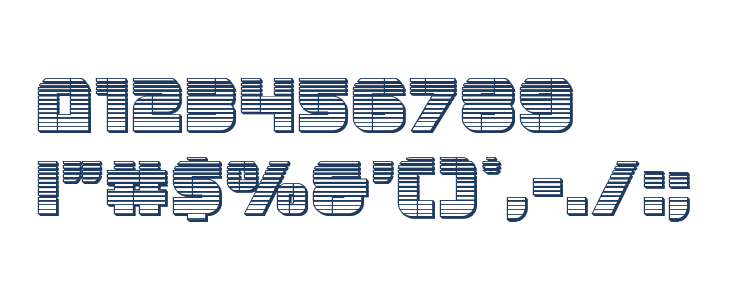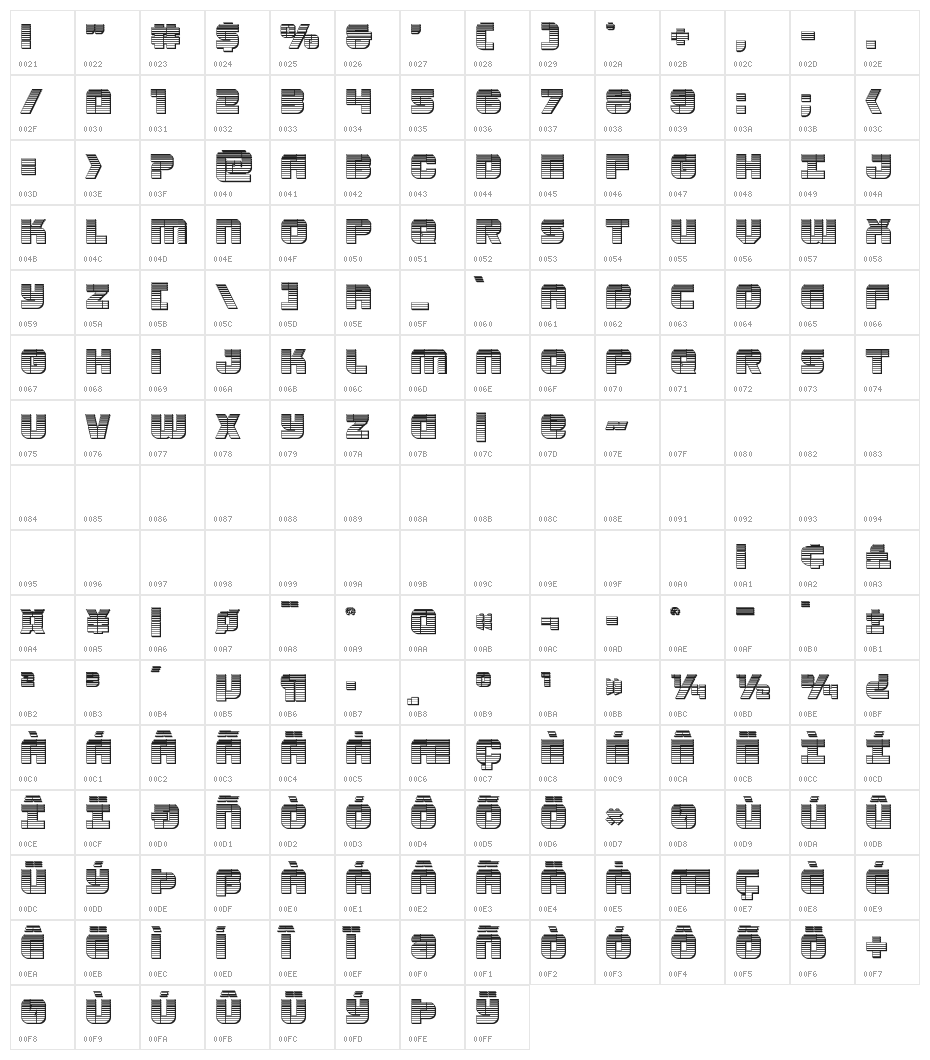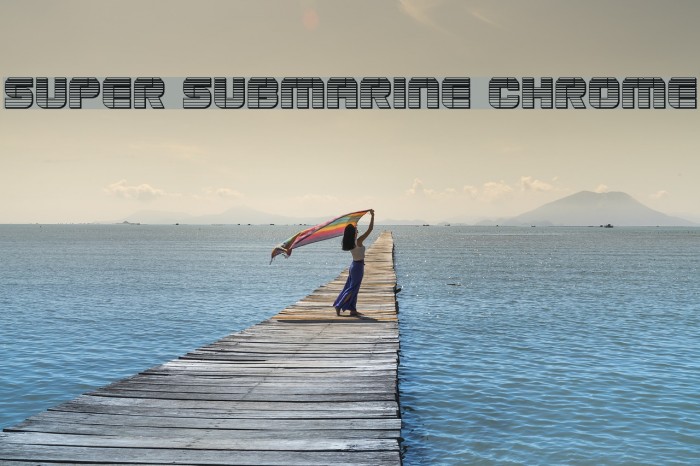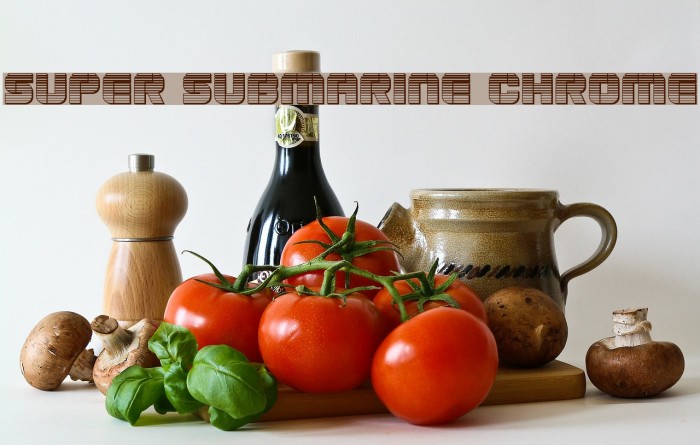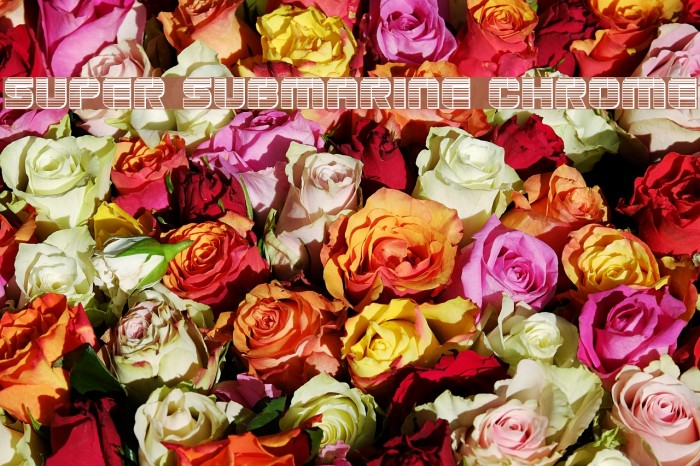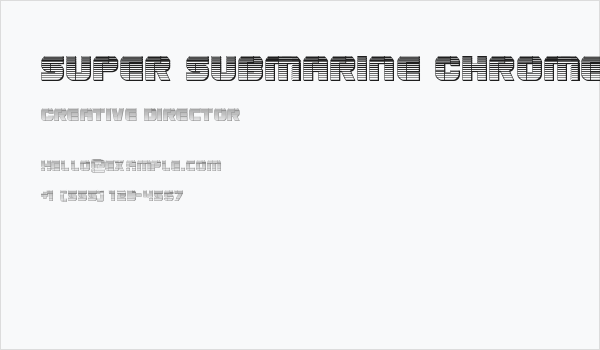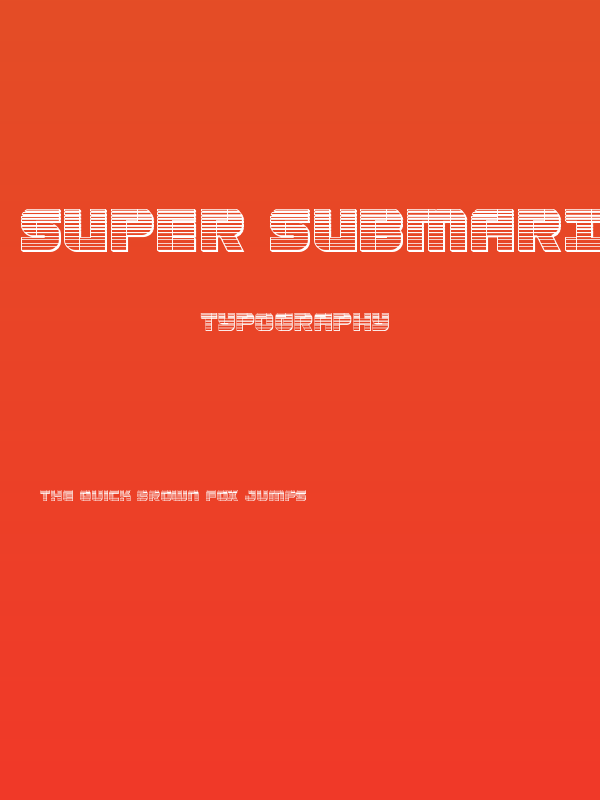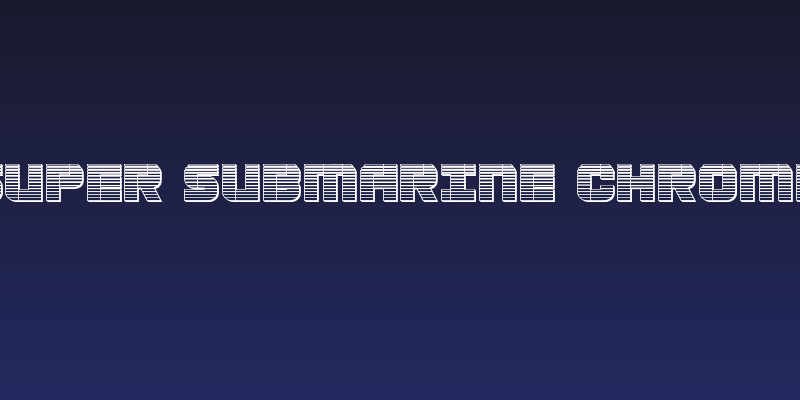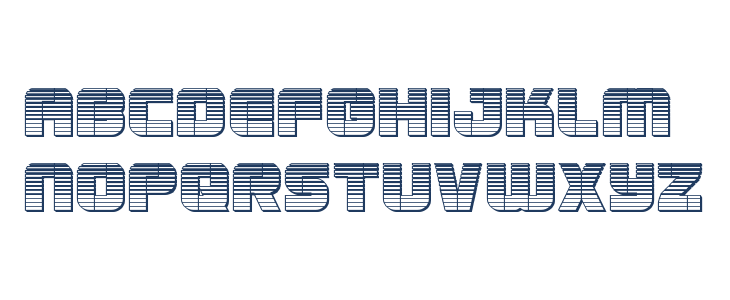
Super Submarine Chrome Font
Super Submarine Chrome Description
This font features a bold, futuristic design with a distinct striped pattern running horizontally across each character. The geometric structure gives it a modern and industrial feel, making it stand out with its unique visual appeal. The uppercase and lowercase letters maintain a consistent style, while the numerals and special characters complement the overall aesthetic. The font's design is reminiscent of digital or technological themes, making it suitable for projects that require a contemporary and edgy look.
| Proposed Projects | Ideal for tech-themed posters, sci-fi book covers, video game titles, and modern branding projects. |